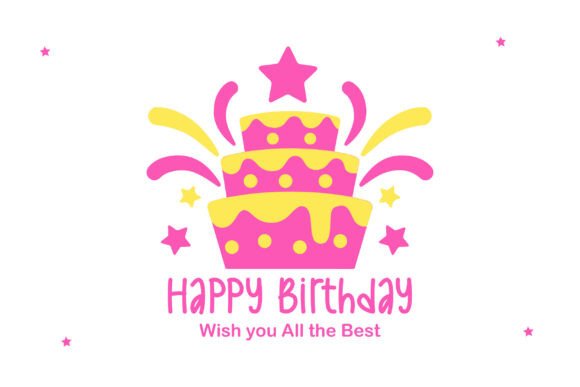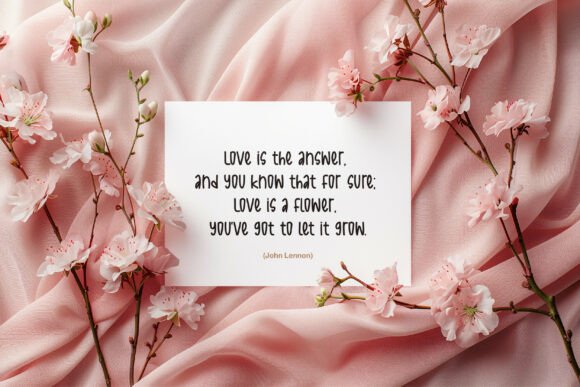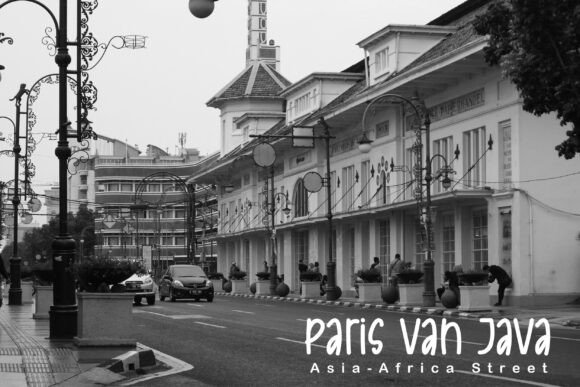
Unlock the Whimsy of Balita Font
Do you remember the excitement of designing a birthday party invitation for a little one, pouring over the perfect font to match the child’s bubbly personality? For many creatives, finding the right typeface can be a moment of pure joy. And that’s exactly where the Balita Font comes in – a charming, one-of-a-kind handwritten font that’s sure to bring a smile to your face.
Perfect for a wide range of creative applications, from children’s party invitations to book covers, Balita Font adds a touch of whimsy and personality to any design. Its playful strokes and multi-language support make it a valuable asset for designers looking to add a unique touch to their projects. Whether you’re working on a new book cover or a ‘Back to School’ message, Balita Font is sure to delight.
Key Features of Balita Font
- Unique Characteristics: The font features a unique, child-friendly design with rounded edges and a playful feel, making it ideal for children’s books, educational materials, and other applications where readability and approachability are crucial.
- Language Support: Balita Font supports multiple languages, including English, Spanish, French, and many others, making it a versatile choice for global applications.
- Font Styles: The font comes in regular, bold, italic, and bold-italic styles, offering flexibility for various design needs.
Review: Balita Font
Overall, I think the Balita font has some great qualities that make it suitable for certain design projects. ✨ The rounded and childlike feel of the font can be quite endearing and work well for projects that require a playful touch. It’s also quite versatile and can be used for a variety of applications, from titles to body text.
- ✨ The rounded edges and curves give the font a friendly and approachable feel.
- ✨ Balita font is quite readable, even at smaller sizes, making it a good choice for digital applications.
- ✨ The font is available in a range of weights and styles, making it easy to customize for different design projects.
However, I do have some concerns about the Balita font. ⚠️ One of the main limitations is that it may not be the best choice for projects that require a more professional or formal tone. The playful feel of the font can come across as immature or unprofessional in certain contexts.
- ⚠️ The font may not be suitable for projects that require a more formal or professional tone.
- ⚠️ Some users may find the font too childish or cutesy, which could be a drawback in certain design projects.
Overall, I think the Balita font is a solid choice for designers who want to add a playful touch to their projects. However, it may not be the best choice for every design project, and designers should carefully consider the tone and style they’re aiming for before selecting this font.
Tips for Getting the Most Out of Balita Font
To maximize the effectiveness of Balita Font, consider the following tips:
- Use Balita Font for titles and headings to create visual interest.
- Pair Balita Font with a clean and simple background to let the font shine.
Balita Font is ideal for:
- Children’s books and educational materials.
- Playful and creative projects.
- Titles and headings in designs that require
Alternatives to Balita Font for Designers
Great Vibes is a modern, cursive font that works well for titles and headings. It’s perfect for creating a friendly, approachable atmosphere in designs. Great Vibes has a similar elegance to Balita Font but is more versatile and can be used in a wide range of projects.
Comparison: Great Vibes has a more fluid, connected feel compared to Balita Font’s blockier, bolder design.